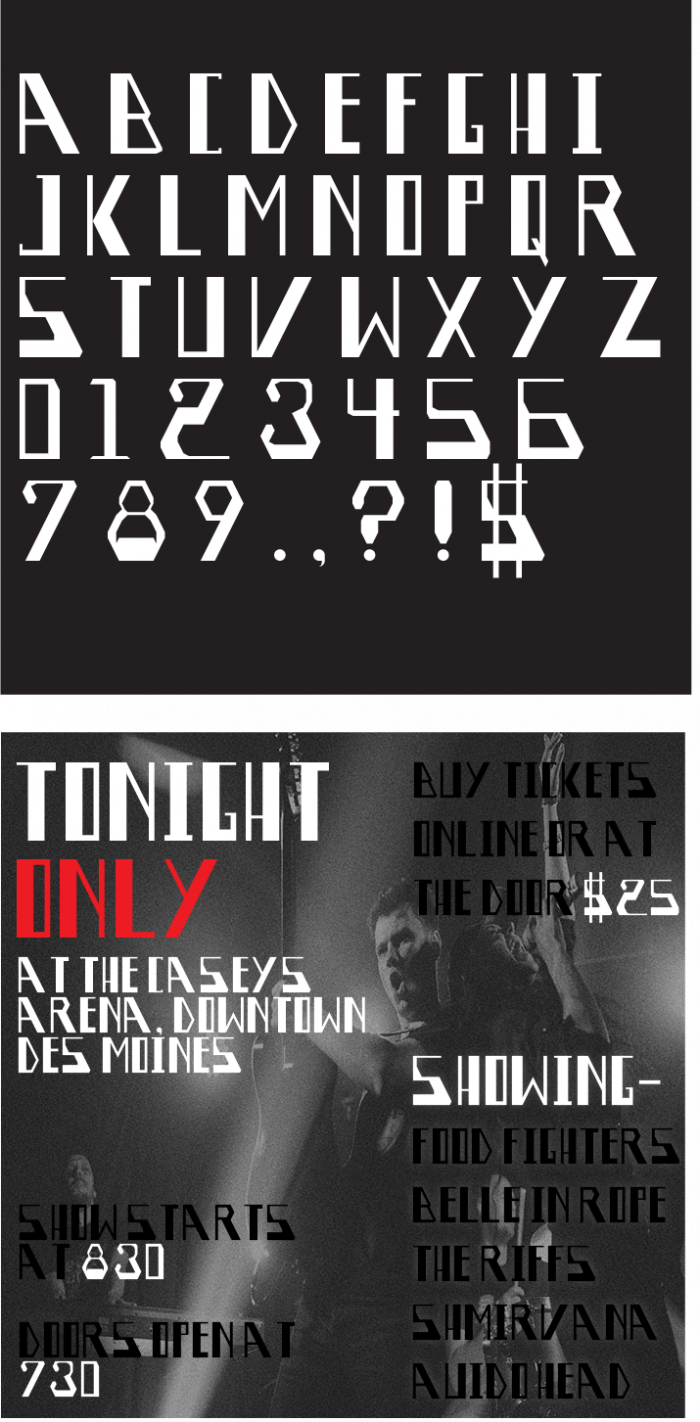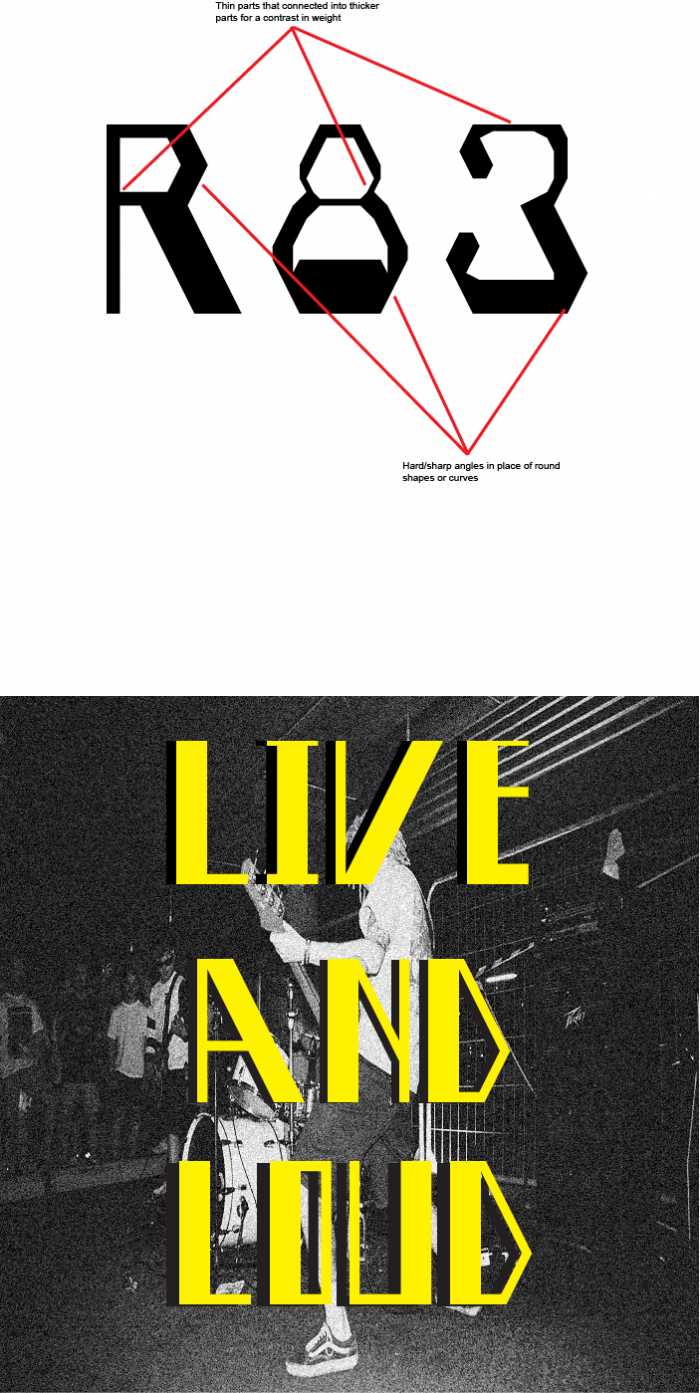
• This type face was created with loud, attention grabbing lettering in mind. I took a lot of inspiration from more curvy styles with thicker and thinner parts but did them more square to feel heavier and more bold.I was going for a consistent style but for them to have their own unique characteristics to set them apart